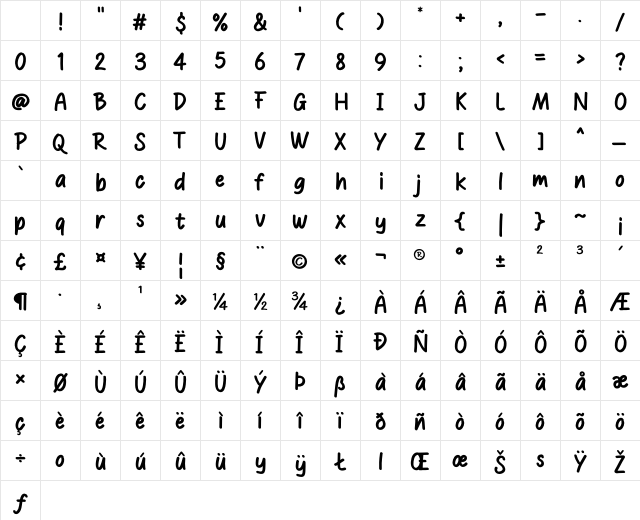
Hand Coffe flows with the natural rhythm of handwritten lettering, making it ideal for designs that call for warmth and personal expression.
Font Pairing: Combine Hand Coffe with a simple geometric sans for maximum contrast - the tension between flowing curves and clean structure is a classic typographic pairing.
Pro Tip: Use Hand Coffe for short runs of text - names, titles, or taglines. Extended body copy in script faces tires the eye quickly.